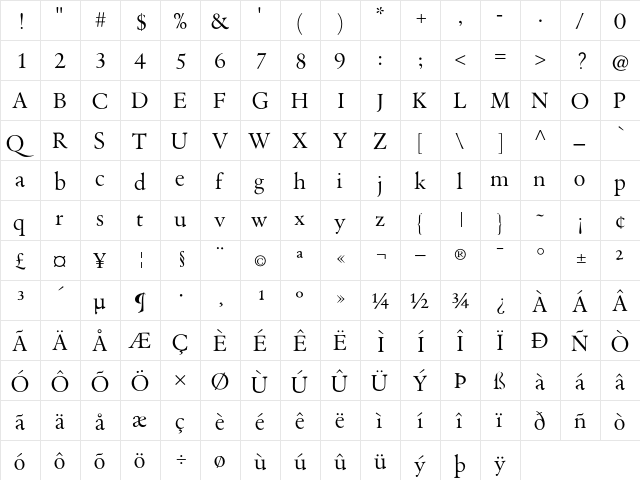
Augereau Regular
Design Context for Augereau Typeface
Augereau takes a measured approach to typography — its balanced proportions and neutral character make it a reliable workhorse for both digital and print work.